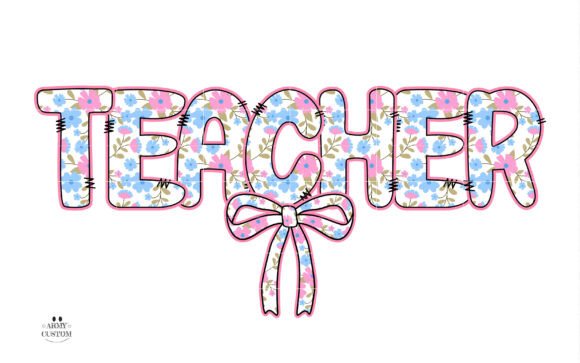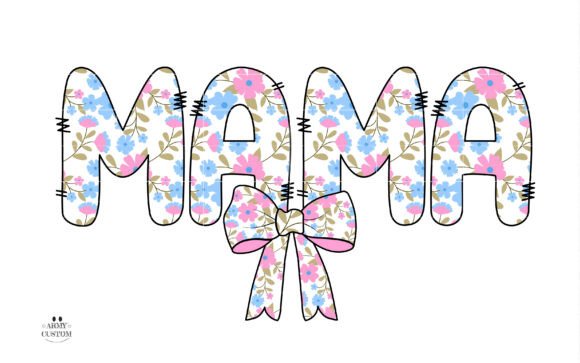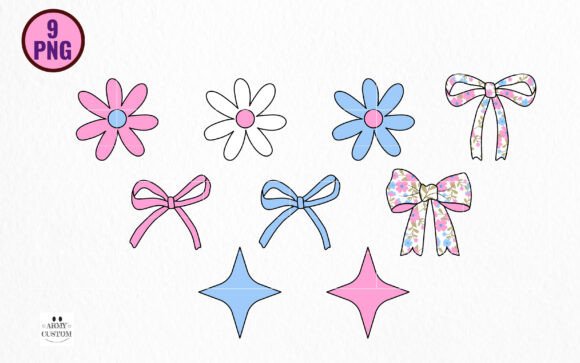
Introduction to Floral Army Font
Remember the thrill of discovering a hidden treasure in your grandmother’s attic? For designers, that moment comes when they stumble upon the perfect font to elevate their creative project. And, trust us, Preppy Coquette Retro Floral, also known as the Floral Army Font, is that treasure. This enchanting font is a masterful blend of vintage charm and mid-century elegance, making it an invaluable addition to any design resource.
As a designer, you understand the importance of selecting a high-quality font that sets the tone for your project. The Floral Army Font is a game-changer, offering a unique and captivating aesthetic that’s sure to leave a lasting impression. Whether you’re working on a branding project or creating a social media graphic, this font is the perfect choice to add a touch of retro glamour. And the best part? It’s available for a free download, complete with a transparent background, making it easy to integrate into your design.
Key Features of Floral Army Font
- High-quality design resource suitable for creative projects, offering a unique and elegant touch.
- Features a transparent background, allowing for seamless integration with any design element.
- Designed with a floral theme, making it perfect for projects that require a touch of whimsy and romance.
Honest Review: Floral Army Font
As a designer, I’m always on the lookout for high-quality design resources that can elevate my creative projects. The Floral Army Font is one such resource that caught my attention, and I’m excited to share my honest review with you.
- ✨ Beautiful and intricate designs: The Floral Army Font features stunning floral patterns that are perfect for adding a touch of elegance to your designs.
- ✨ Versatile and customizable: This font can be used for a variety of creative projects, from wedding invitations to social media graphics.
While the Floral Army Font is an excellent resource, I did encounter a few limitations:
- ⚠️ Limited character set: The font only includes uppercase letters and a few punctuation marks, which may limit its use in certain situations.
- ⚠️ Not suitable for large text: The intricate designs in the font may not be suitable for large text sizes, as they can become difficult to read.
Overall Impression:
Overall, I’m impressed with the Floral Army Font and its potential to elevate creative projects. While it has some limitations, it’s an excellent resource for designers who want to add a touch of elegance to their designs.
Introduction to Floral Army Font
The Floral Army Font is a high-quality, free design resource ideal for creative projects. This versatile font features a unique, floral design that can add a touch of elegance to any project.
Tips for Getting the Most Out of Floral Army Font
For the best results, use the Floral Army Font on a transparent background to create a clean and elegant design. Experiment with different font sizes and styles to add visual interest to your project.
The Floral Army Font is perfect for creative projects such as:
- Event branding and marketing materials
- Blog and website headers
- Printable art and quotes